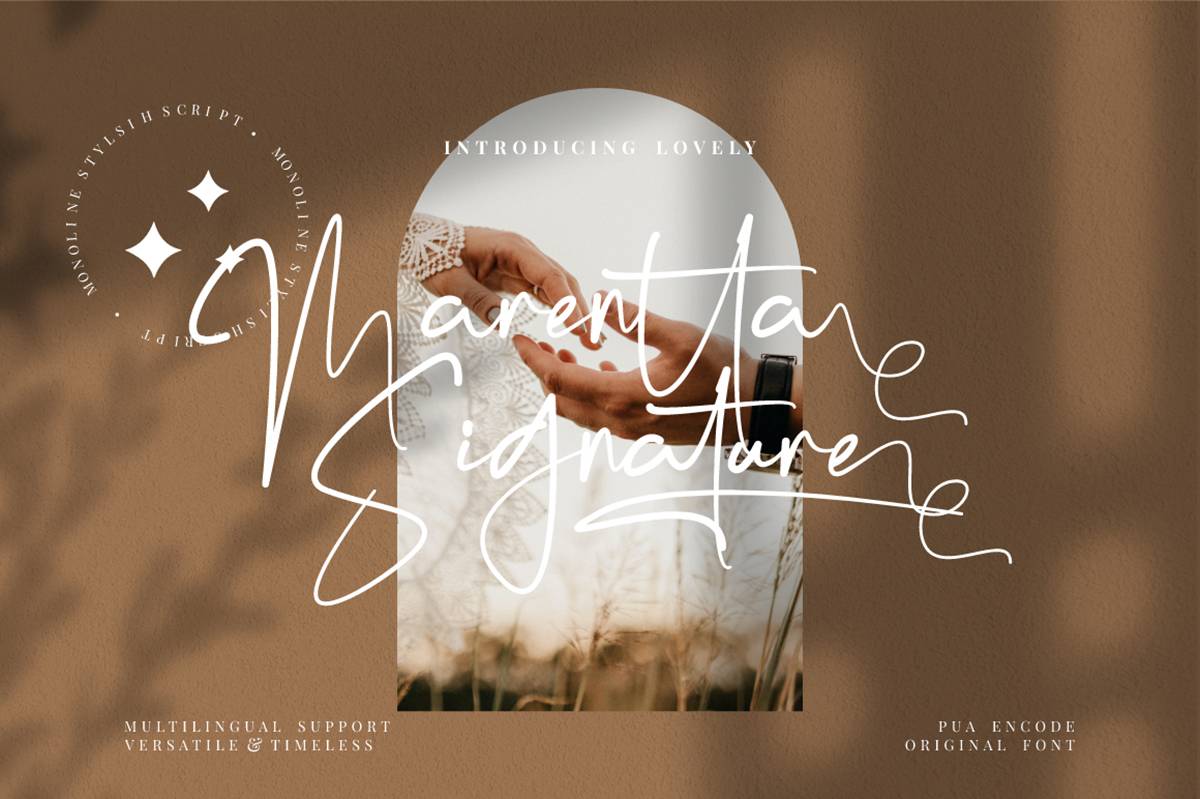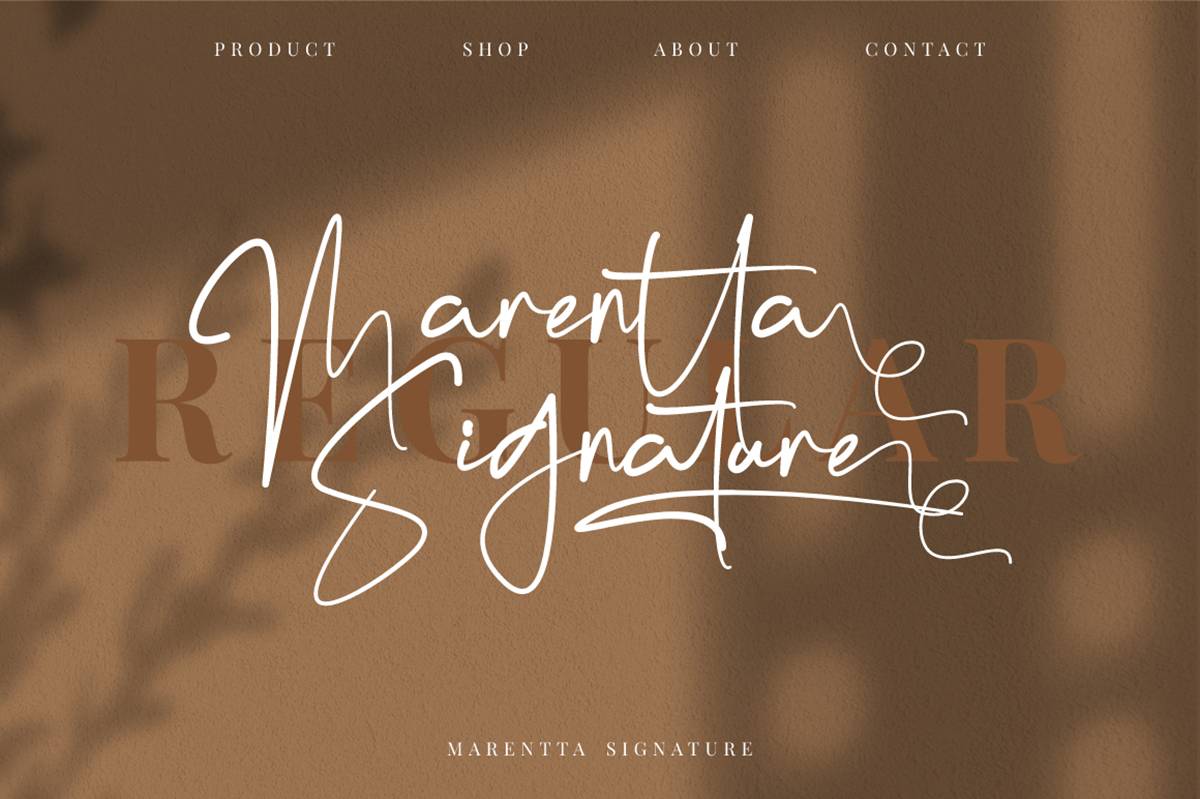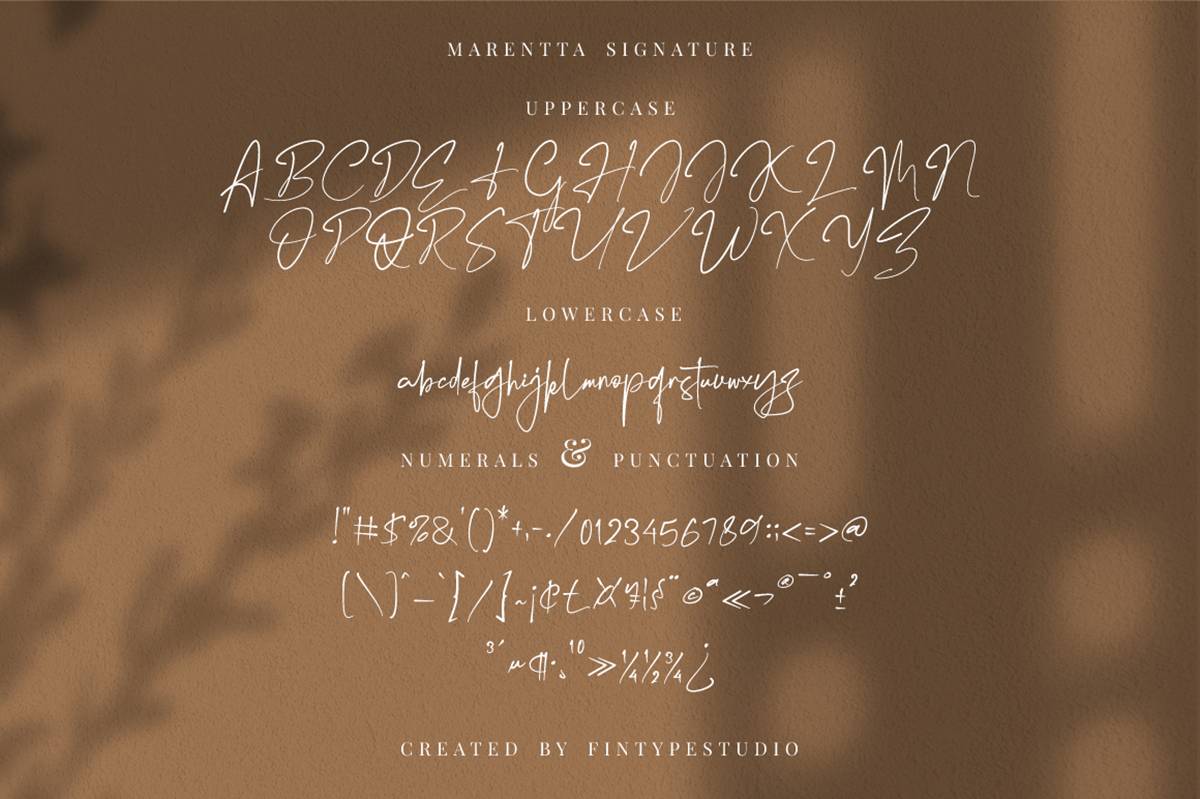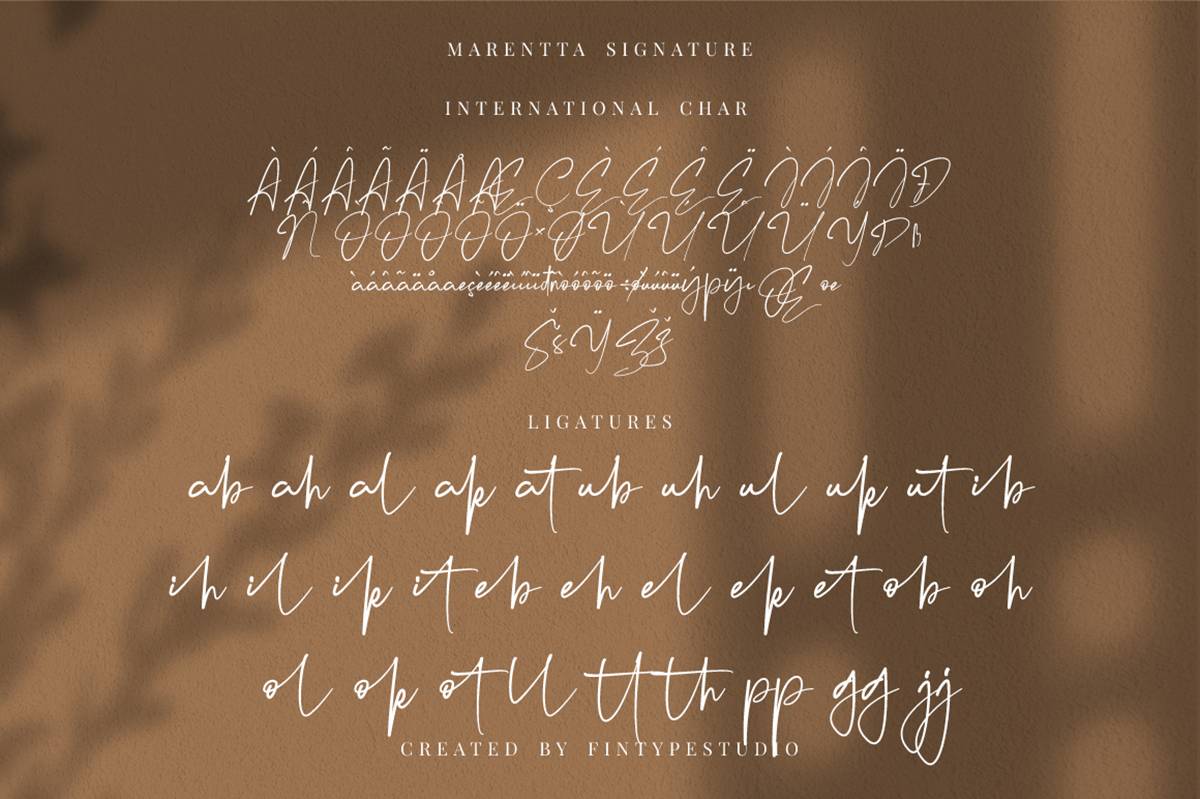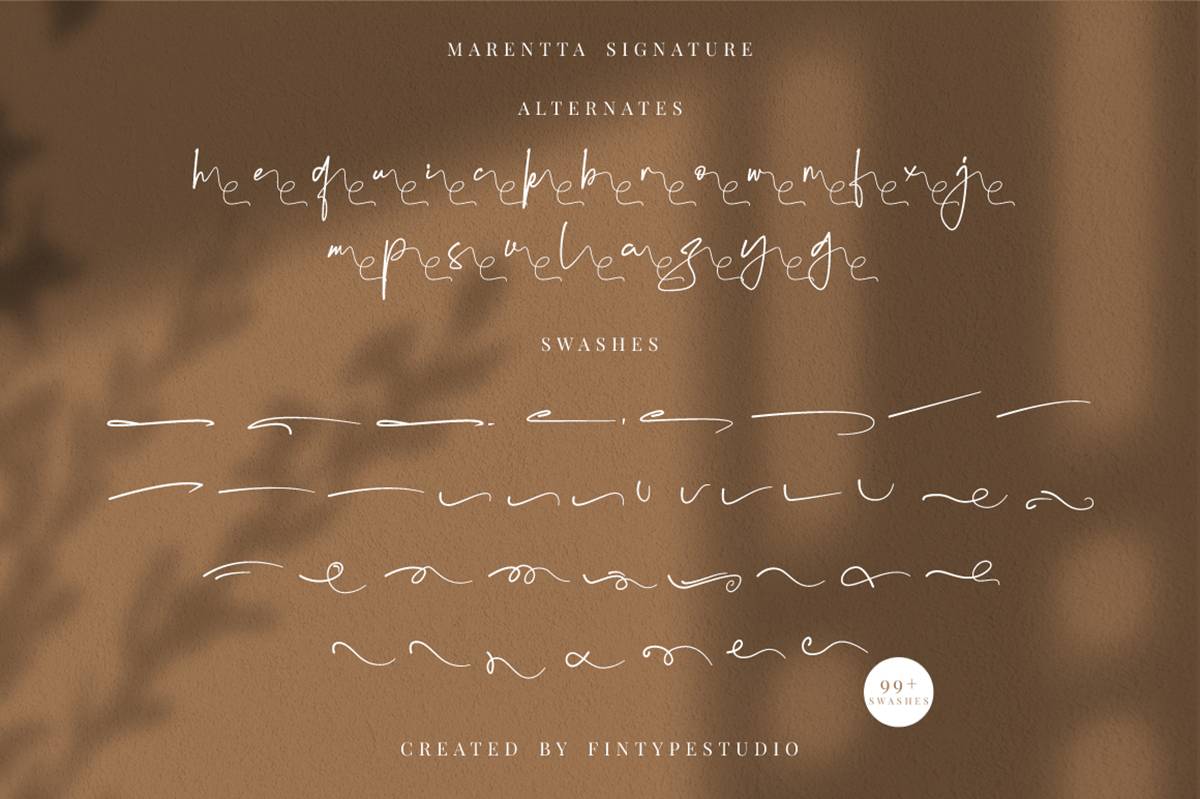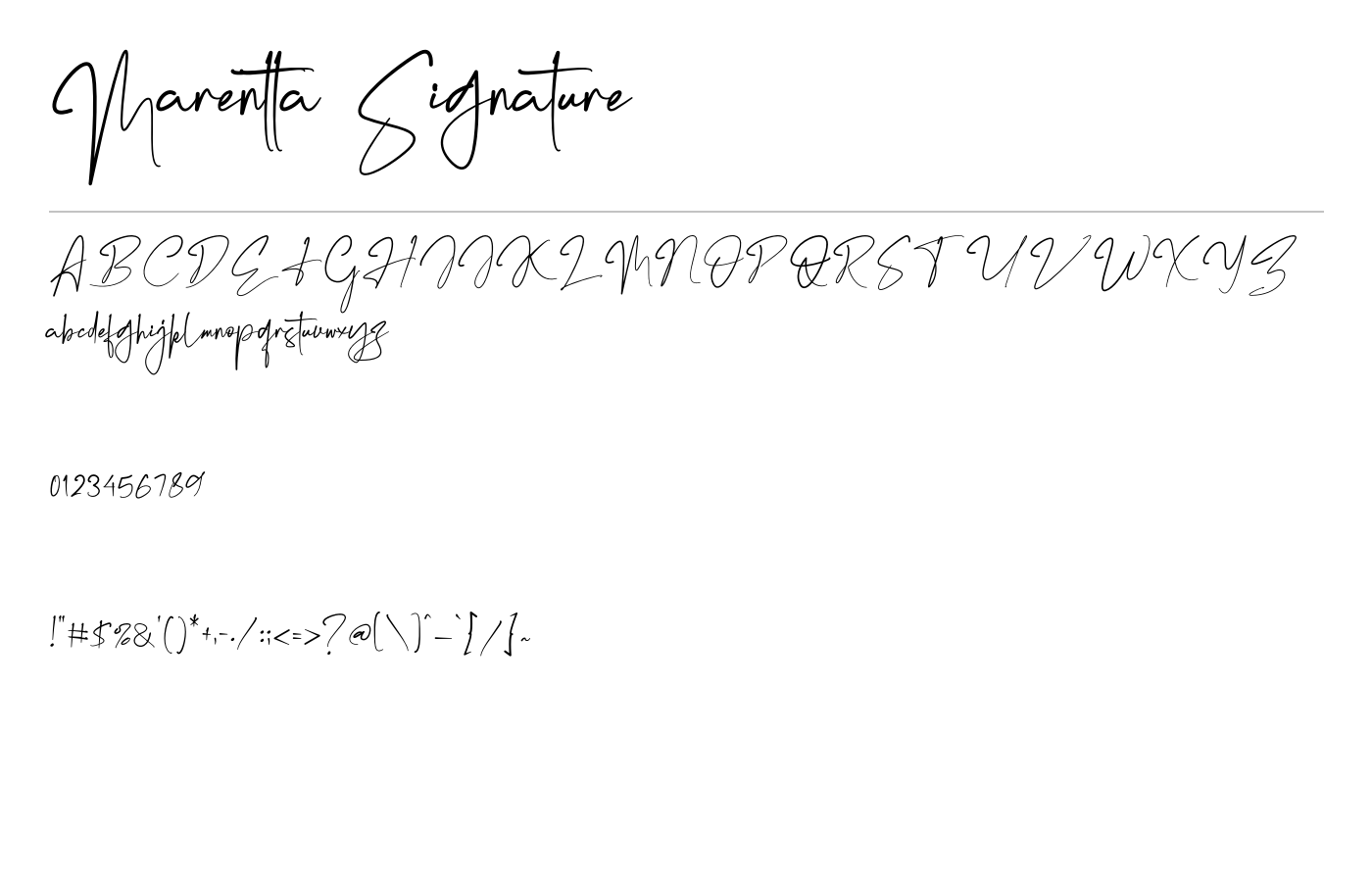
Marentta Signature is a delicate, elegant script font that mimics natural handwriting with a refined, airy touch. Its thin strokes and flowing, feminine letterforms make it perfect for luxury branding, wedding invitations, and stylish logos where a personal, sophisticated feel is desired. This font’s graceful style works well in headline use and decorative contexts, adding a modern yet timeless charm.
Marentta Signature Font
About Marentta Signature Font
| Font family | Marentta Signature Font |
| Designer | FinTypeStudio |